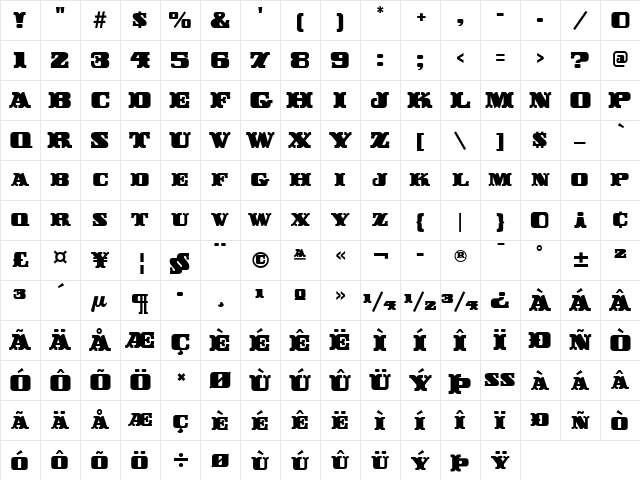
Buckeroo ITC Black
Foundry: International Typeface Corporation
Design Context for Buckeroo ITC
Buckeroo ITC is a composed and adaptable typeface that performs quietly and consistently across a wide range of design contexts.